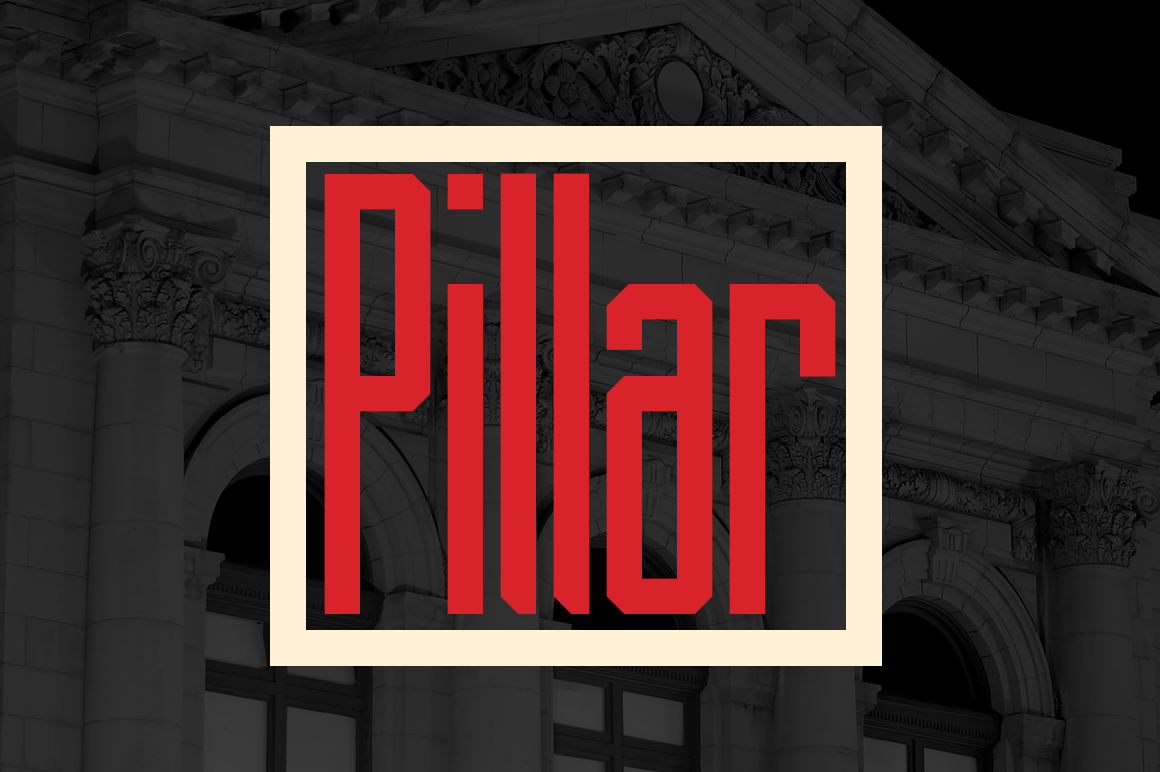
Pillar Typeface
The font Pillar is inspired by steel pillars that support buildings and bridges together. In similar fashion, the font is designed to support the content for which it will be used. The font is intended to be used as a header or headline font, but a creative designer will find other uses for it. Most of the characters are based on the same rectangle and therefore contain the same width which displays symmetry. The font contains 242 glyphs which include: uppercase and lowercase letters, numbers, symbols, accented characters, and ligatures.